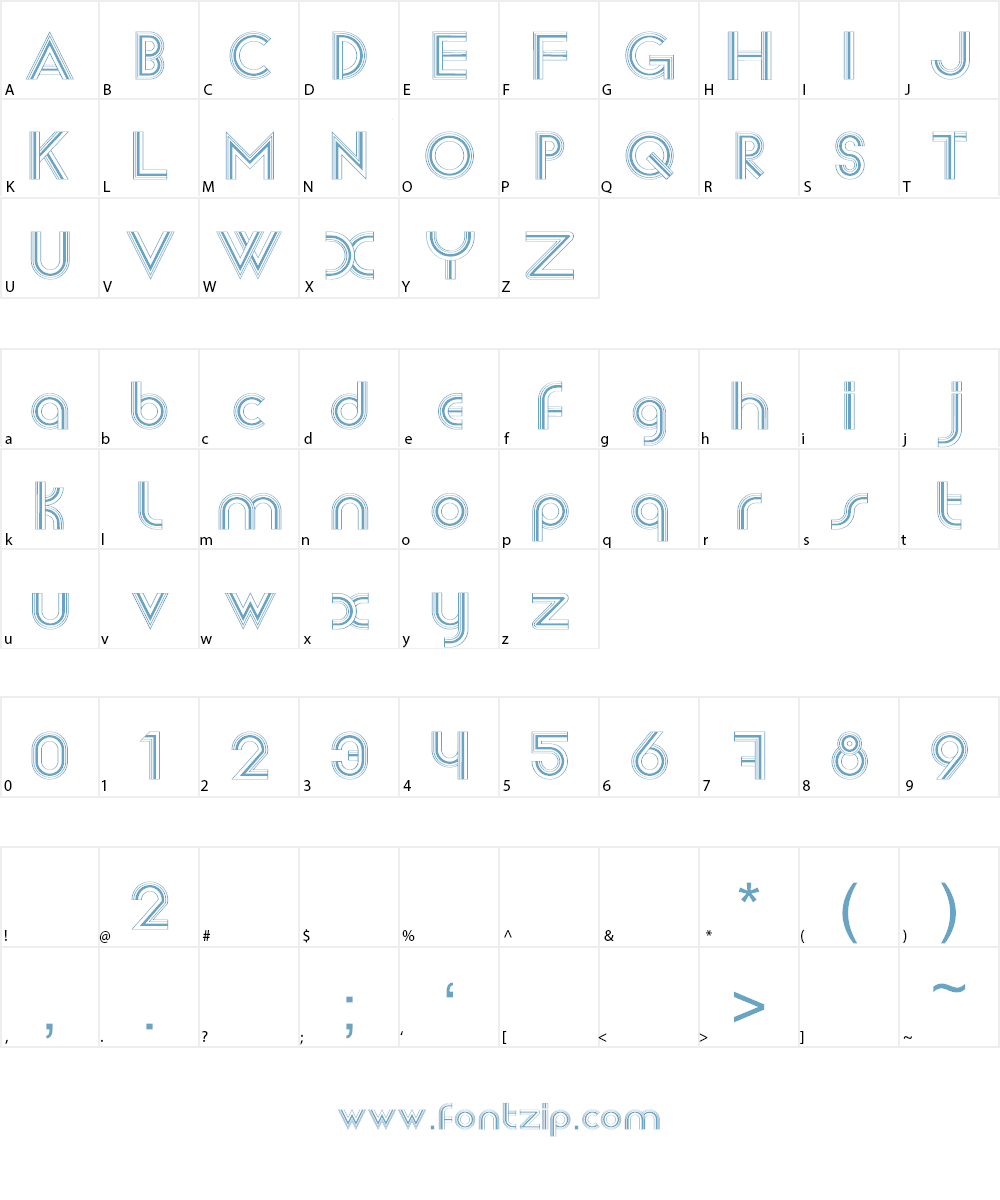
I wanted to make a retro font, so I looked for some inspiration. I found a cool poster called Filmsense, by Milton Glaser. He used a font designed by himself called (can you guess it?) Filmsense. It seems there were two versions, namely Filmsense A and B, but I couldn't find but a small sample of them. So, based on his font, I came up with my Newsense (I know, very original name :) free for you all to download and use.